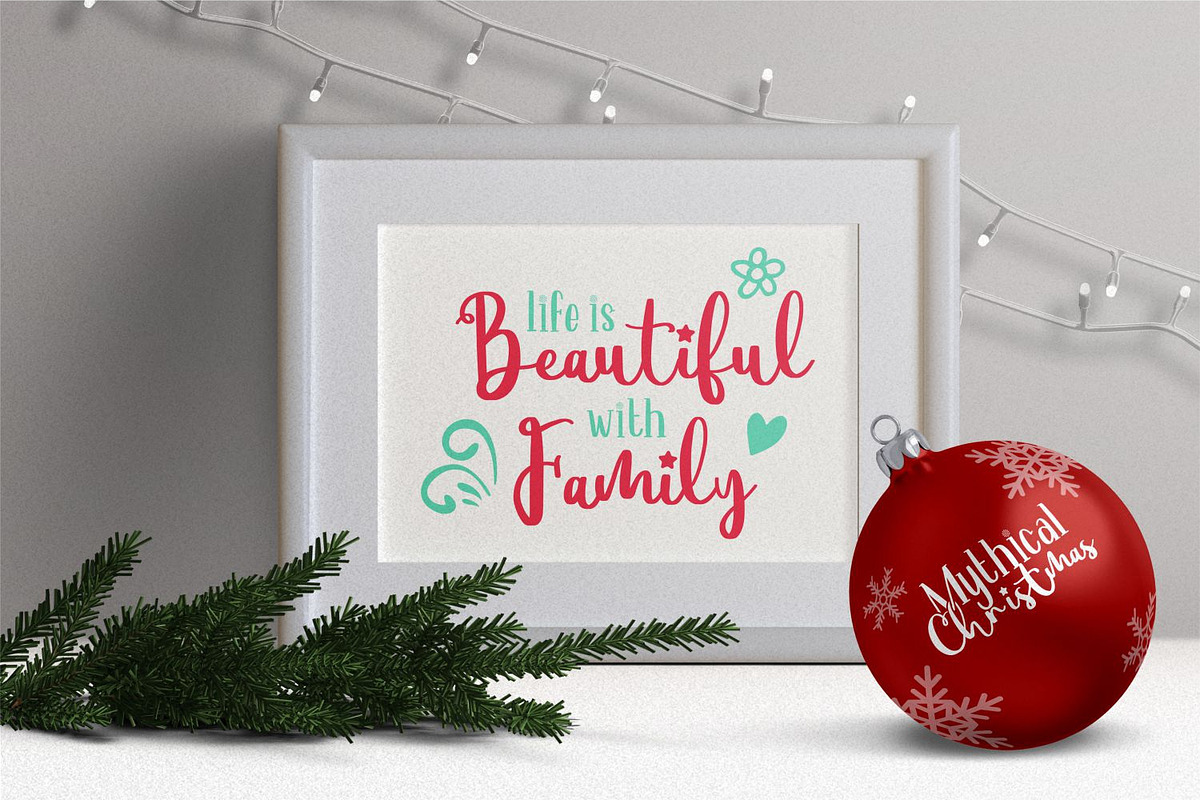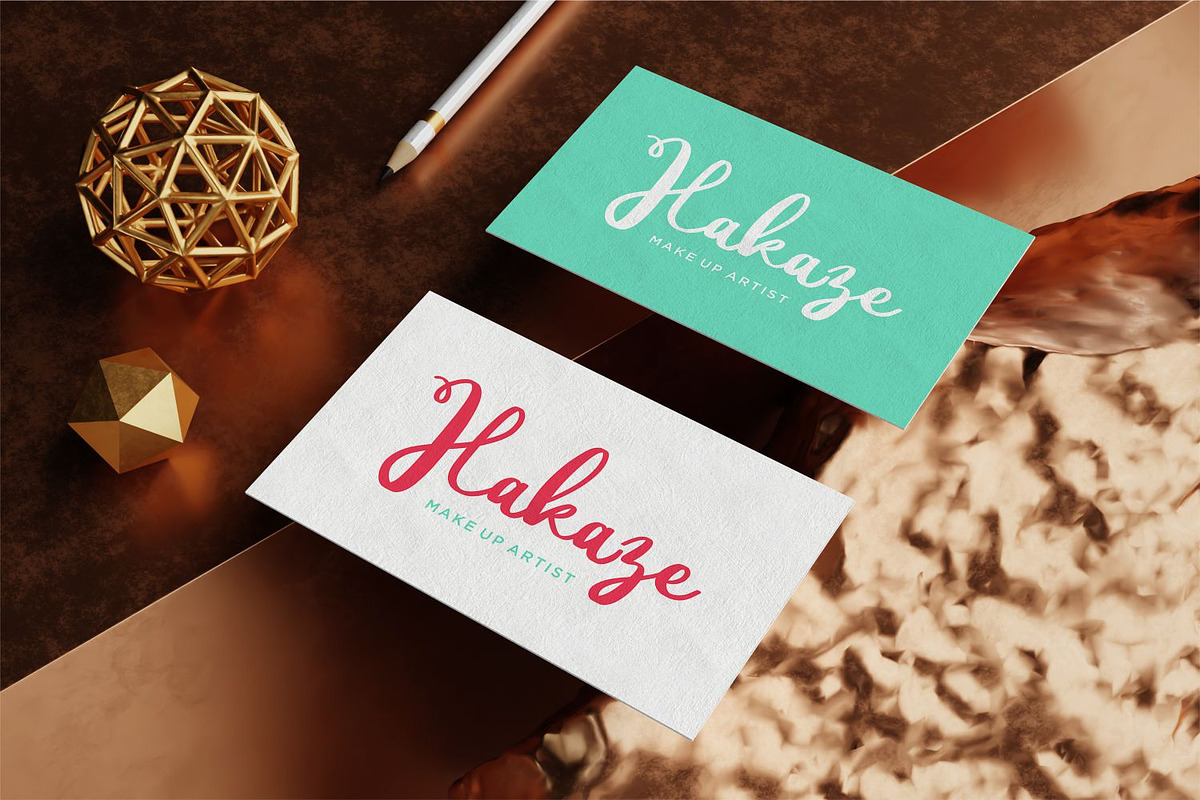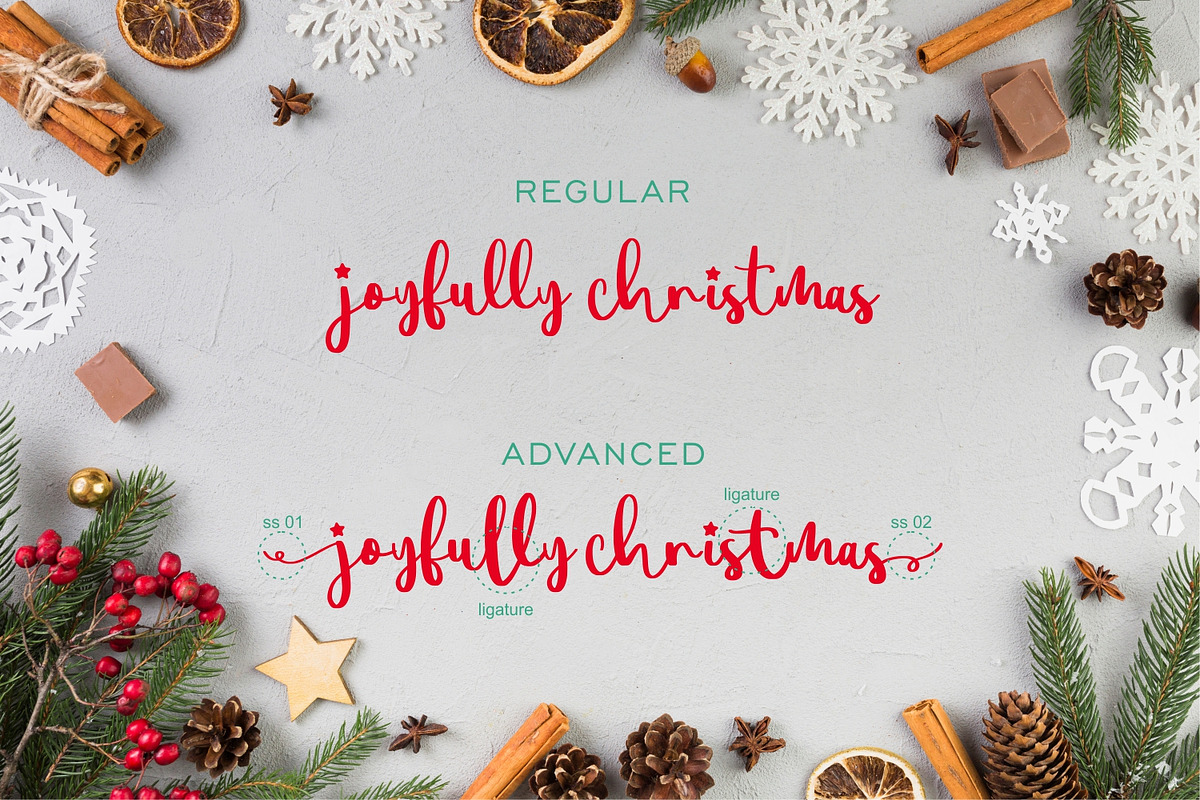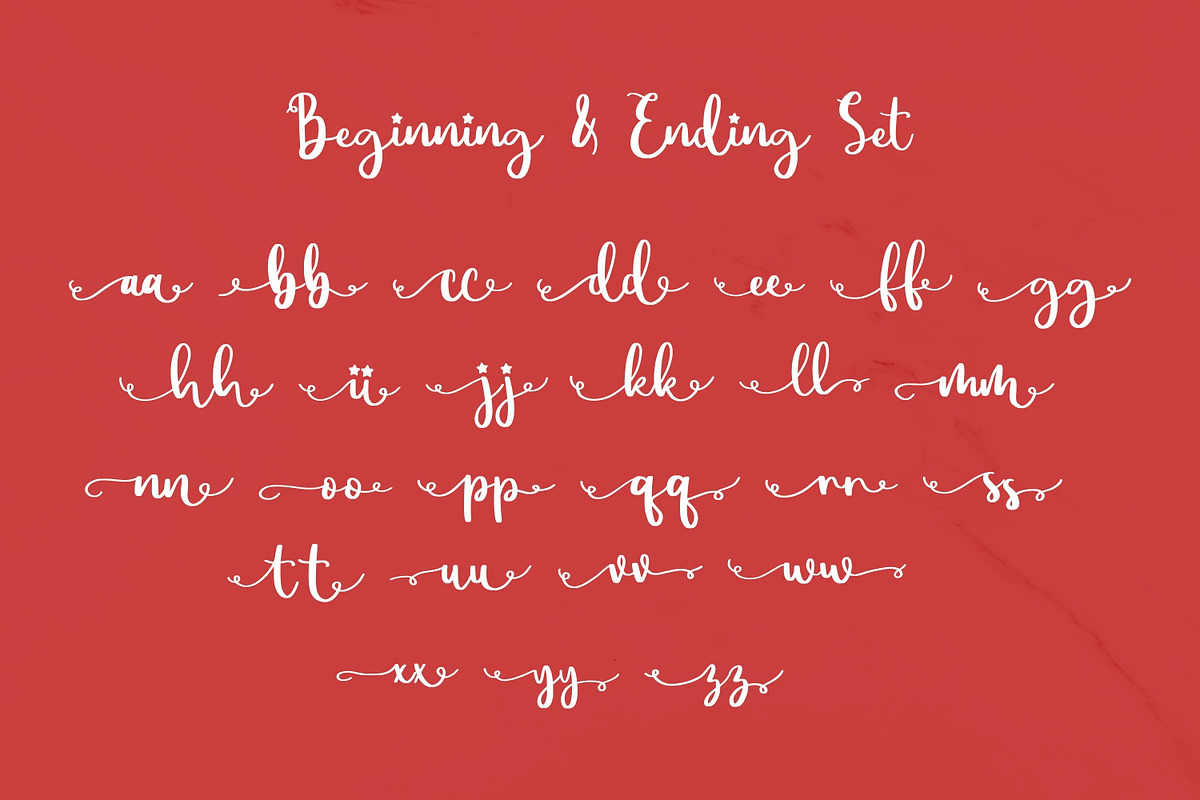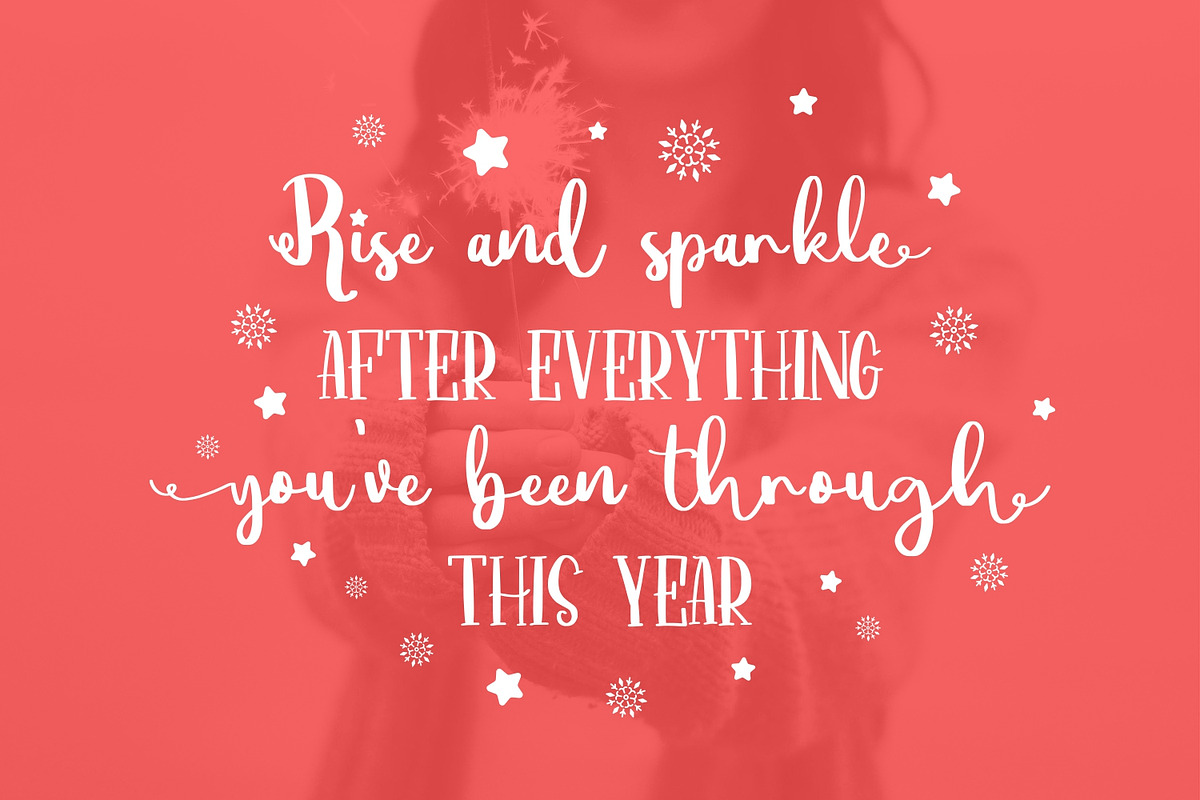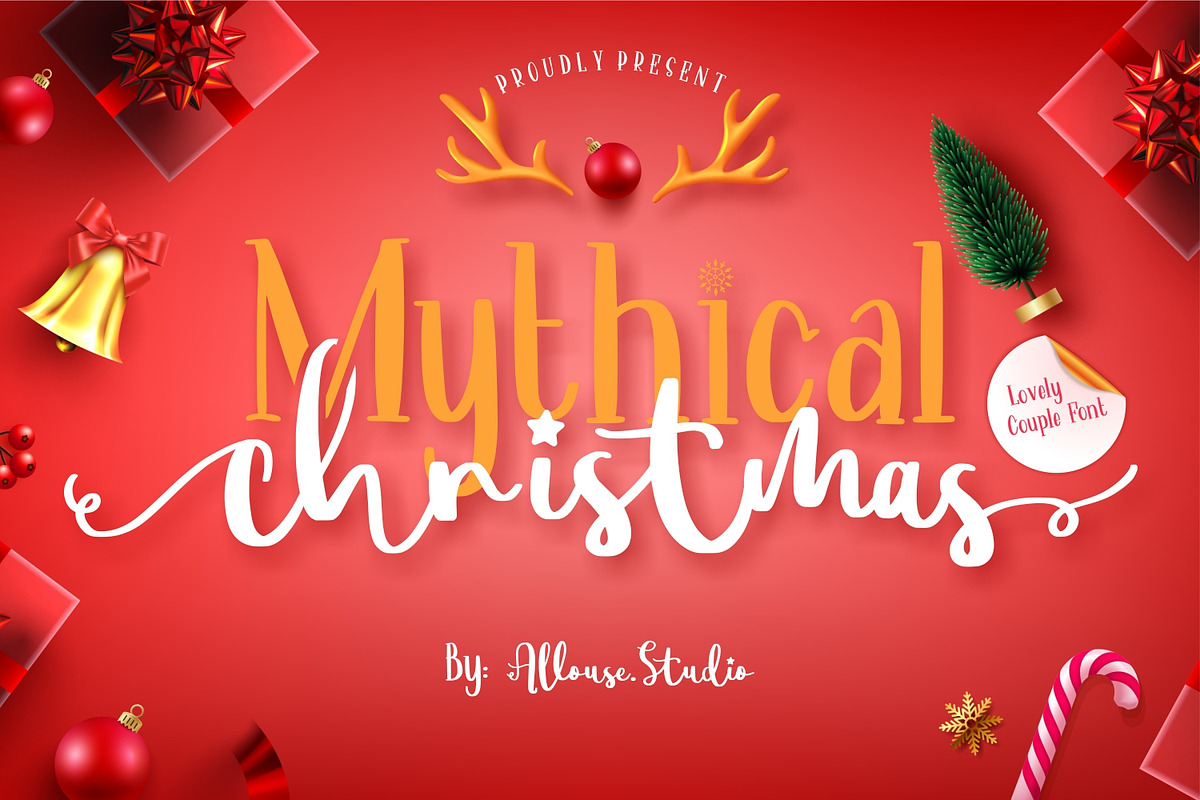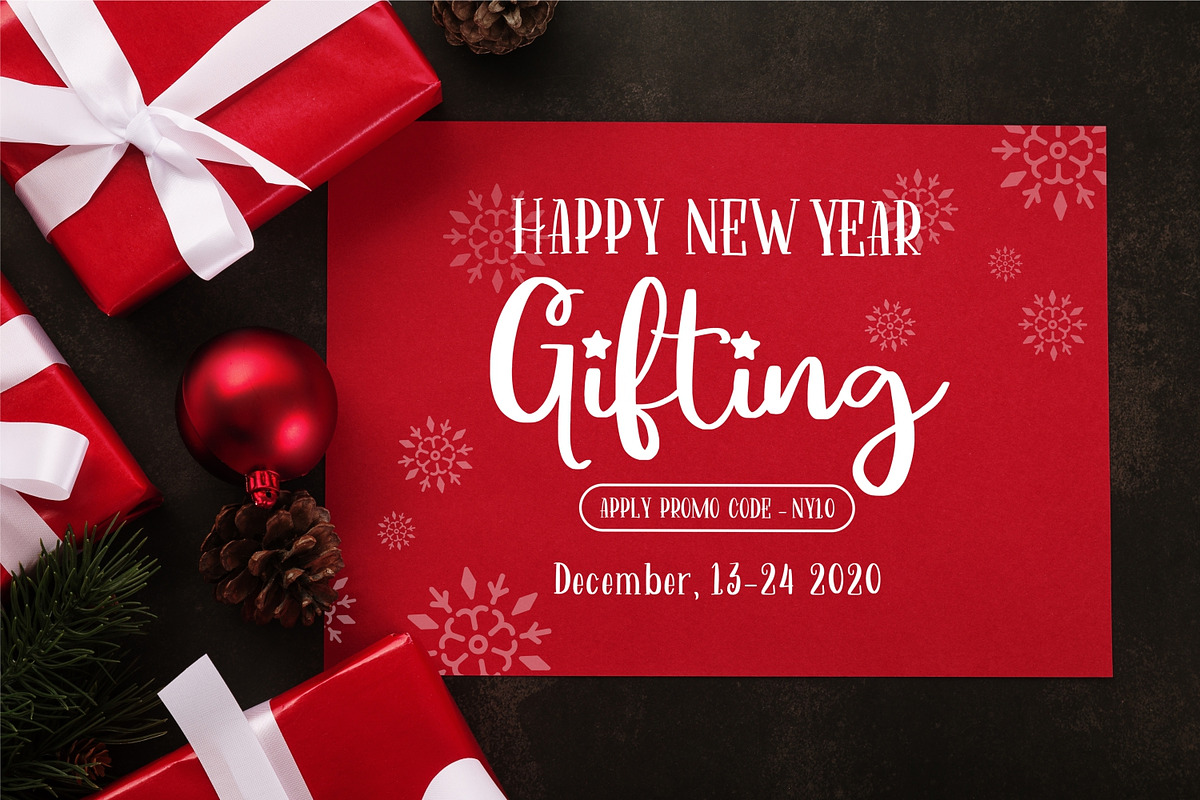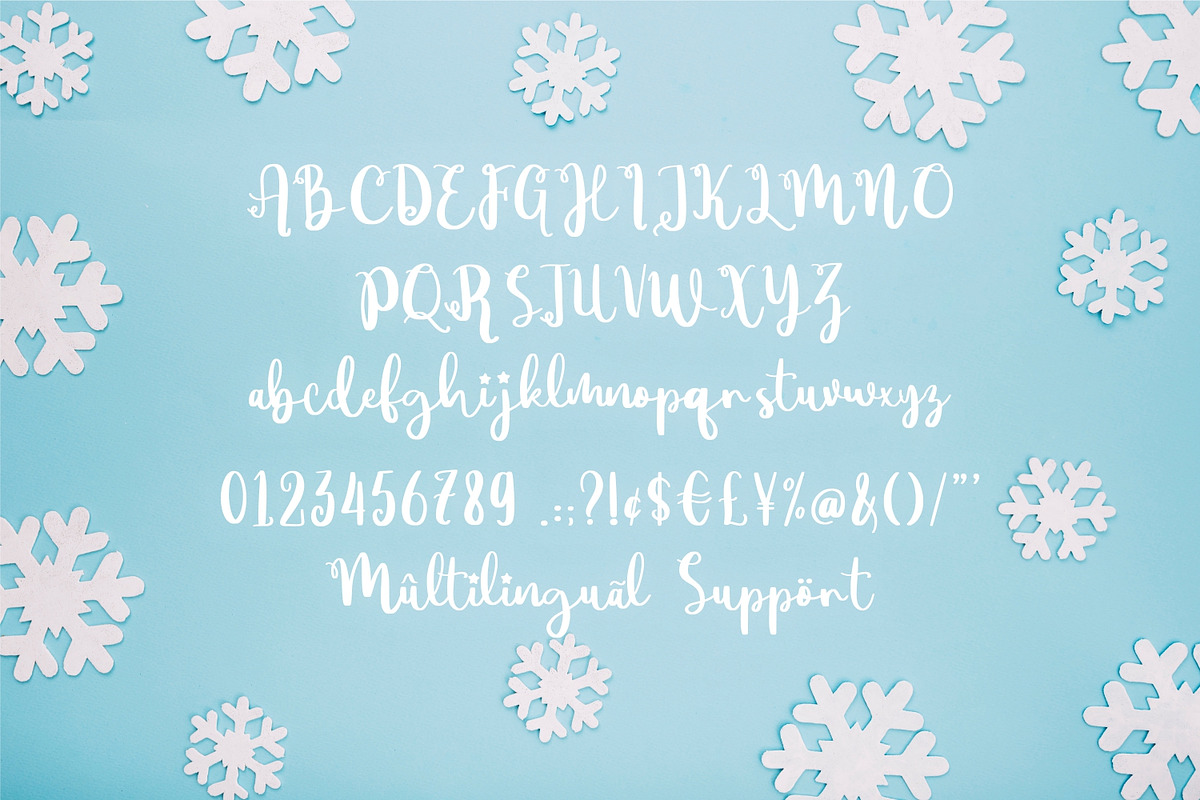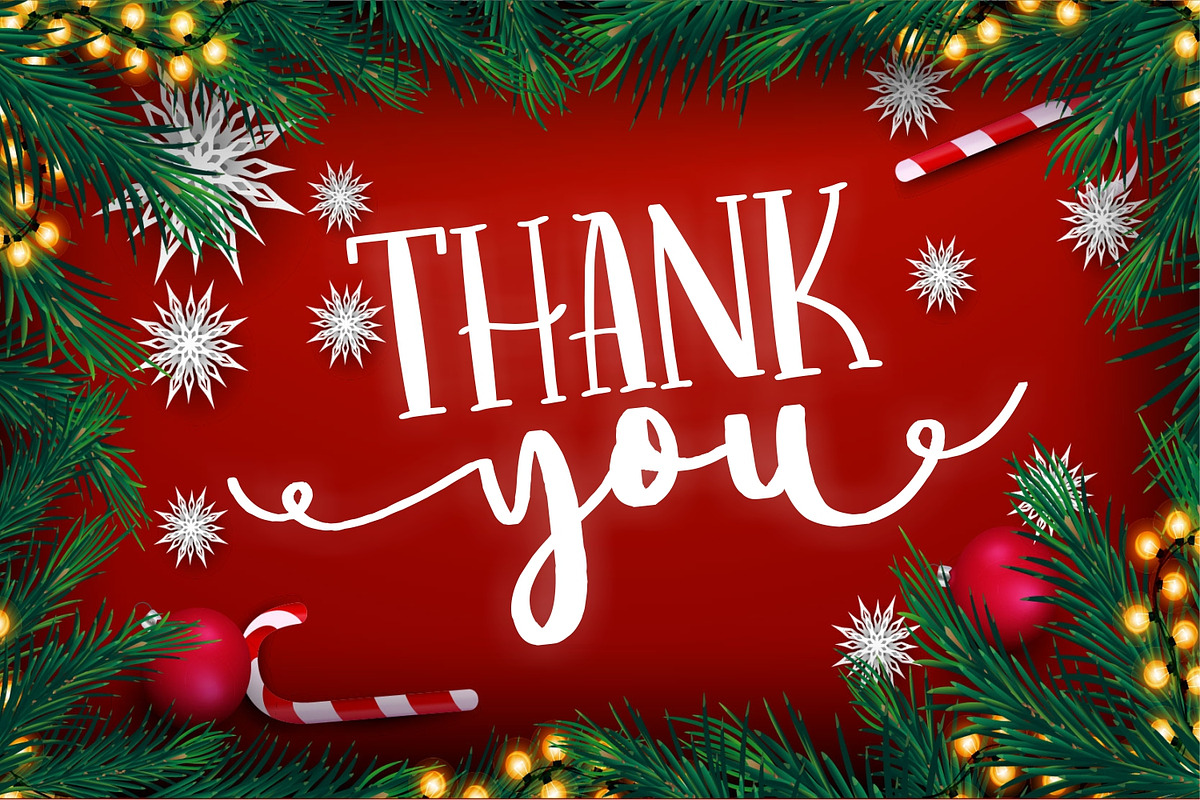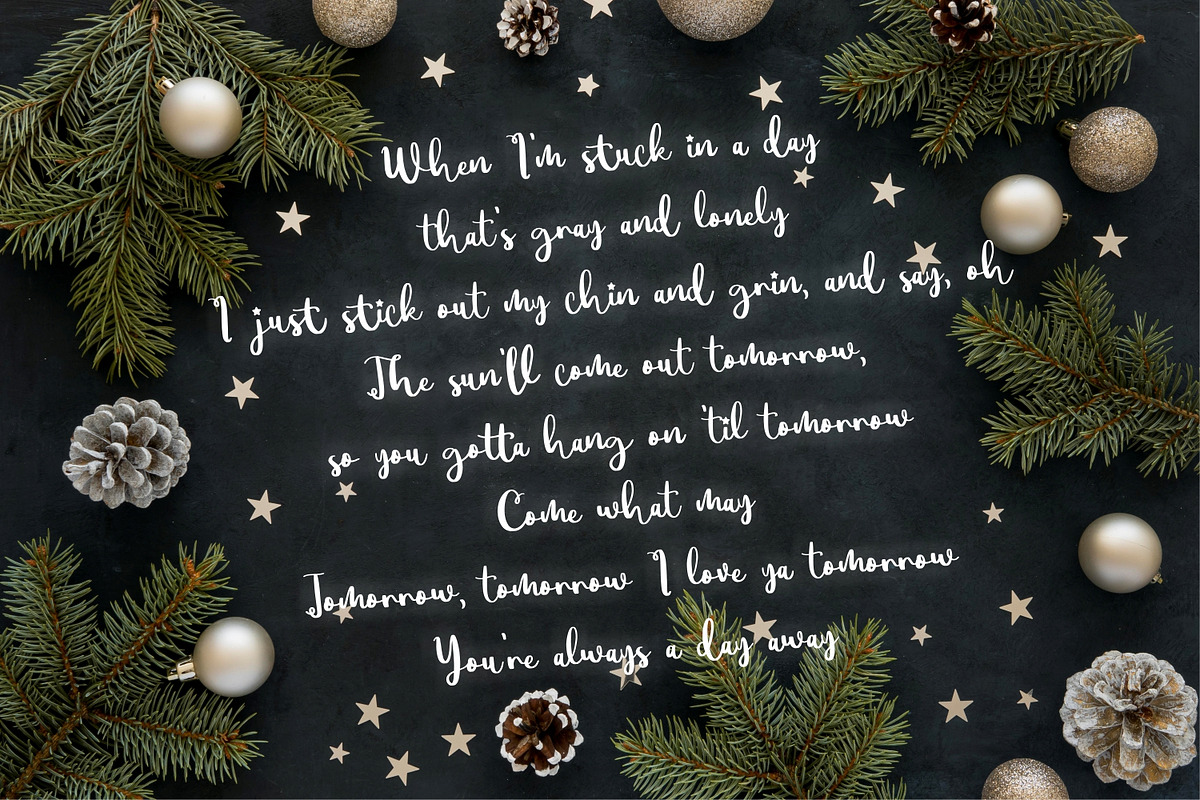
Mythical Christmas Font
Proudly Present, Mythical Christmas.
Mythical Christmas is a Lovely Couple Font.
Mythical Christmas is perfect for product packaging, branding project, megazine, social media, wedding, or just used to express words above the background.